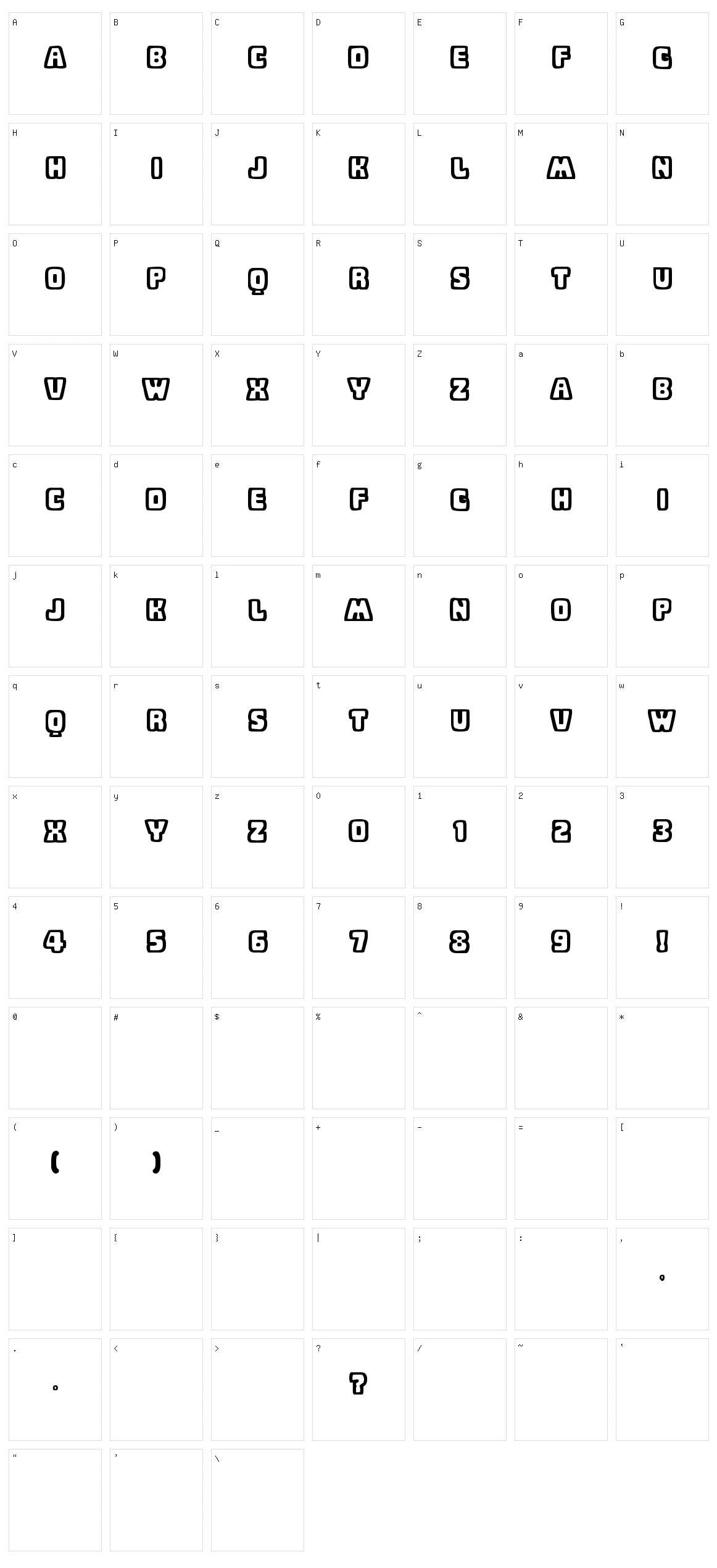
The free font Baby Eskimo Kisses is carefully designed by Lars Manenschijn, showcasing a thoughtful balance of creativity and usability and falls under the Cartoon font style. When you download the ZIP file, it contains only 36.72 KB of font files, making it lightweight and quick to download. Please review the license details below to understand permitted usage and distribution rights. If license information is not available, we recommend using this font for personal projects only or contacting the author directly for commercial usage permissions.